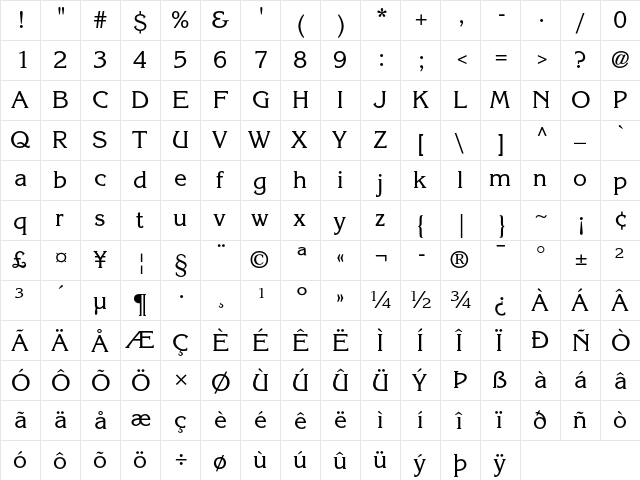
ITC Korinna Regular Font Preview
ITC Korinna Regular
ITC Korinna Regular Font Details
Design Context for ITC Korinna Typeface
ITC Korinna takes a measured approach to typography — its balanced proportions and neutral character make it a reliable workhorse for both digital and print work.